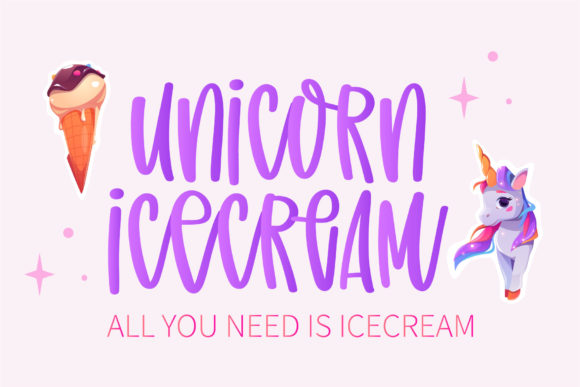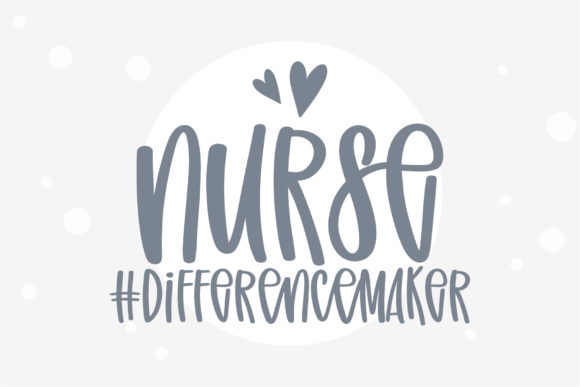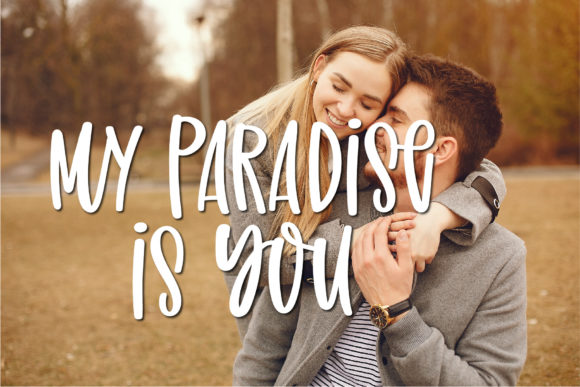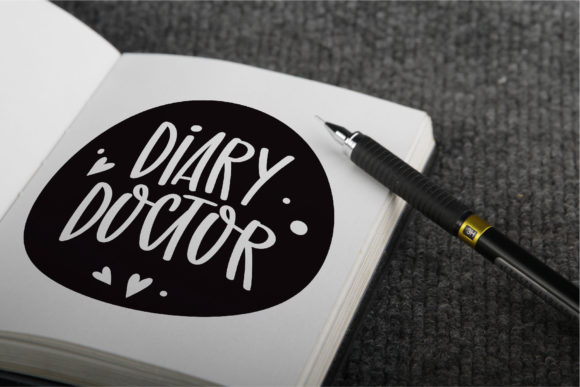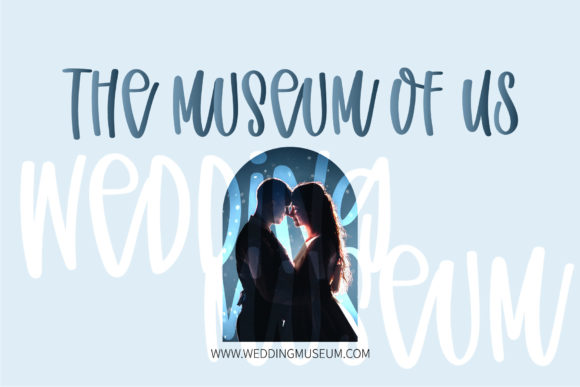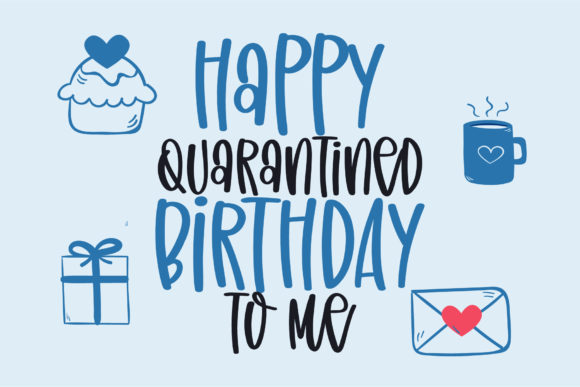
Introduction to Hello Gorgeous Font
Hello Gorgeous is a cool, friendly, and informal handwritten font, that can be used for all chalkboard quotes or teaching material.
Its authentic look and feel will add a personal and realistic feel to your designs .
Hello Gorgeous Font offers exceptional quality and versatility, making it a valuable addition to your design toolkit. Whether you’re creating for personal projects or commercial use, Hello Gorgeous Font delivers professional results.